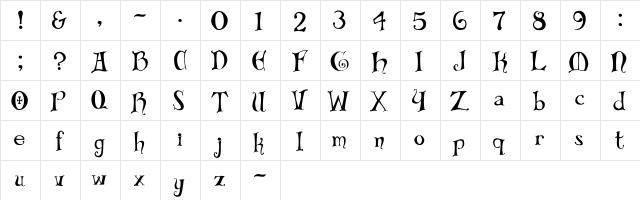
Bibliotheque Regular
Design Context for Bibliotheque Typeface
Bibliotheque is a composed and adaptable typeface that performs quietly and consistently across a wide range of design contexts.